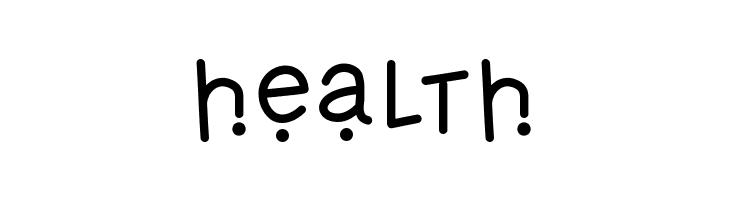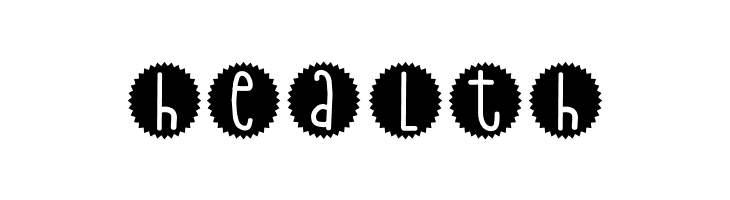
A playful, bubbly font with rounded characters and circular accents.
A playful and quirky font with circular dots integrated into each character.
A modern, geometric font with thin lines and circular elements.
A bold, decorative font with letters enclosed in circular saw blade-like borders.
A playful, decorative font with bold letters featuring circular cutouts.
A modern, geometric font with circular and linear elements, offering a futuristic aesthetic.
A bold, circular font with geometric and playful design elements.